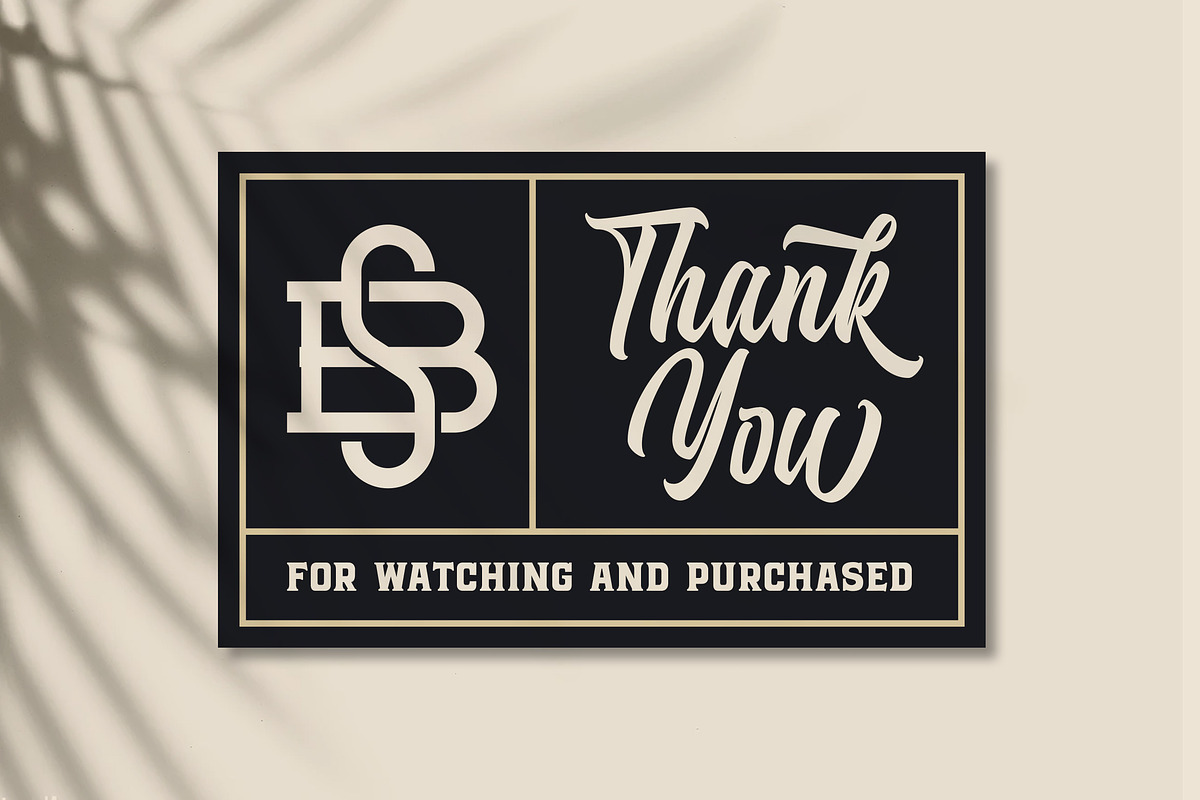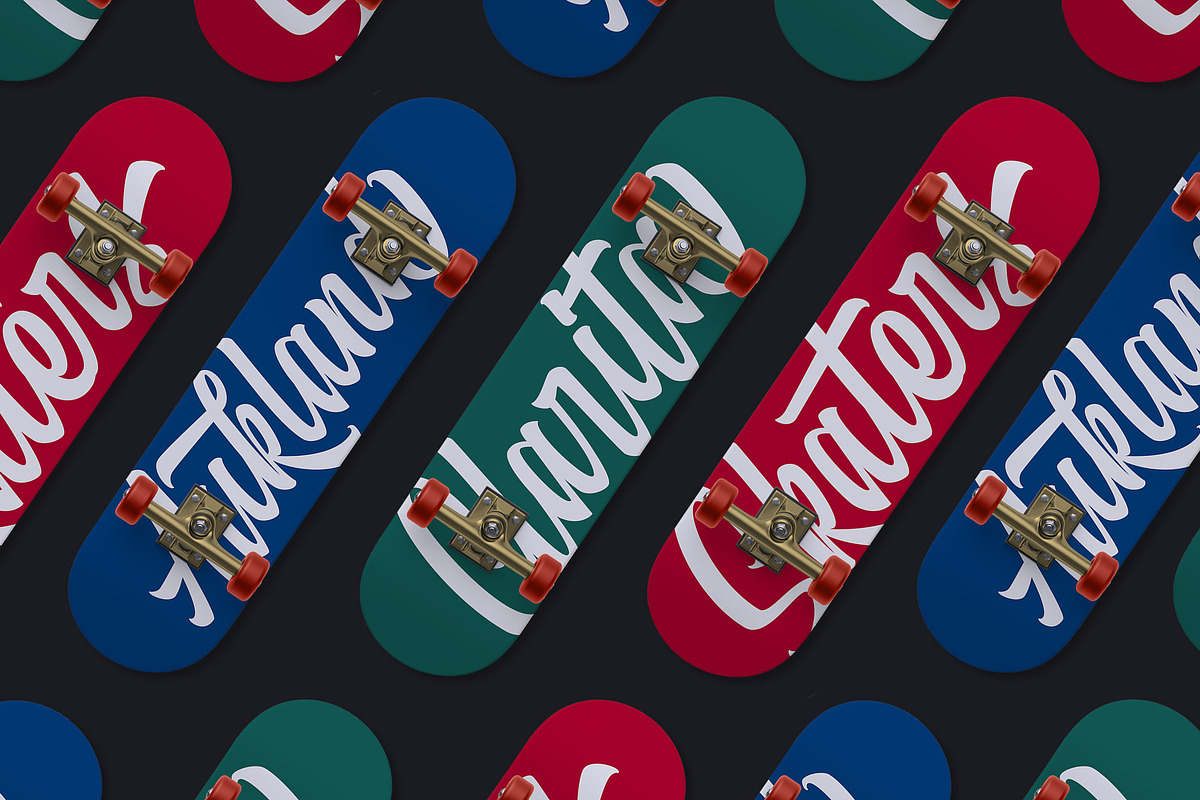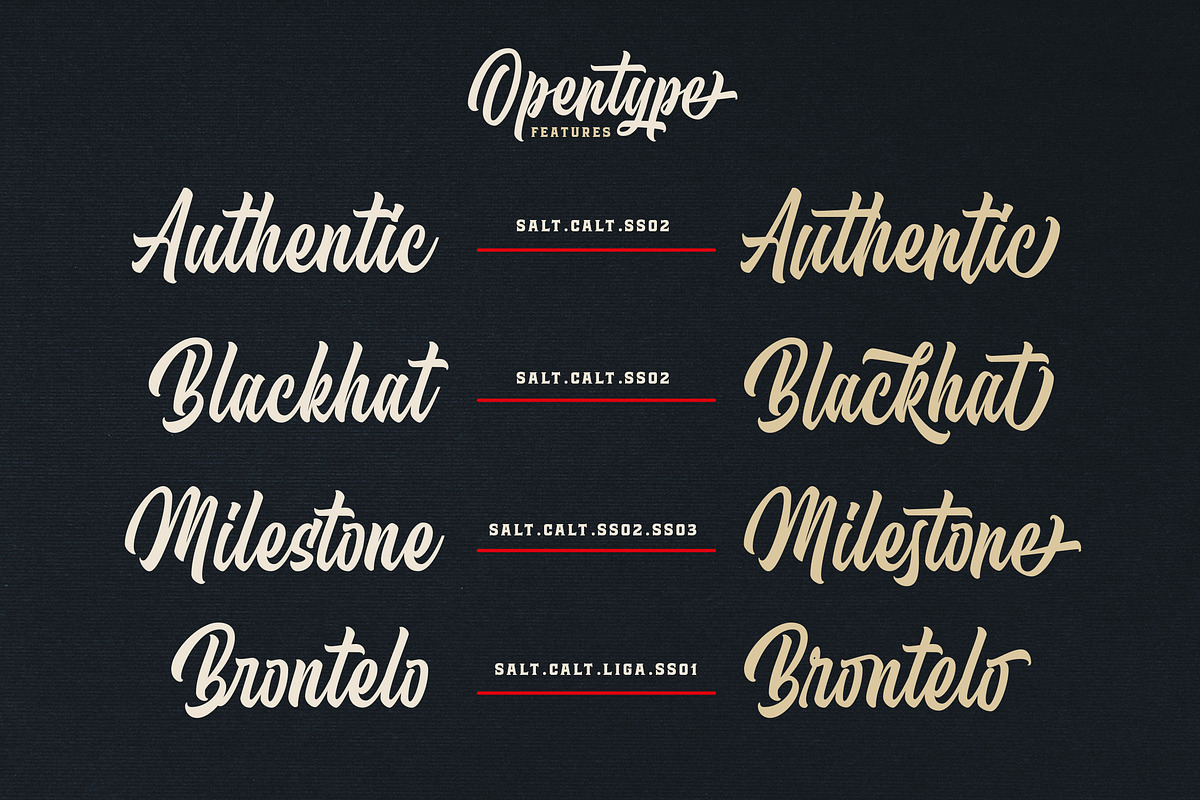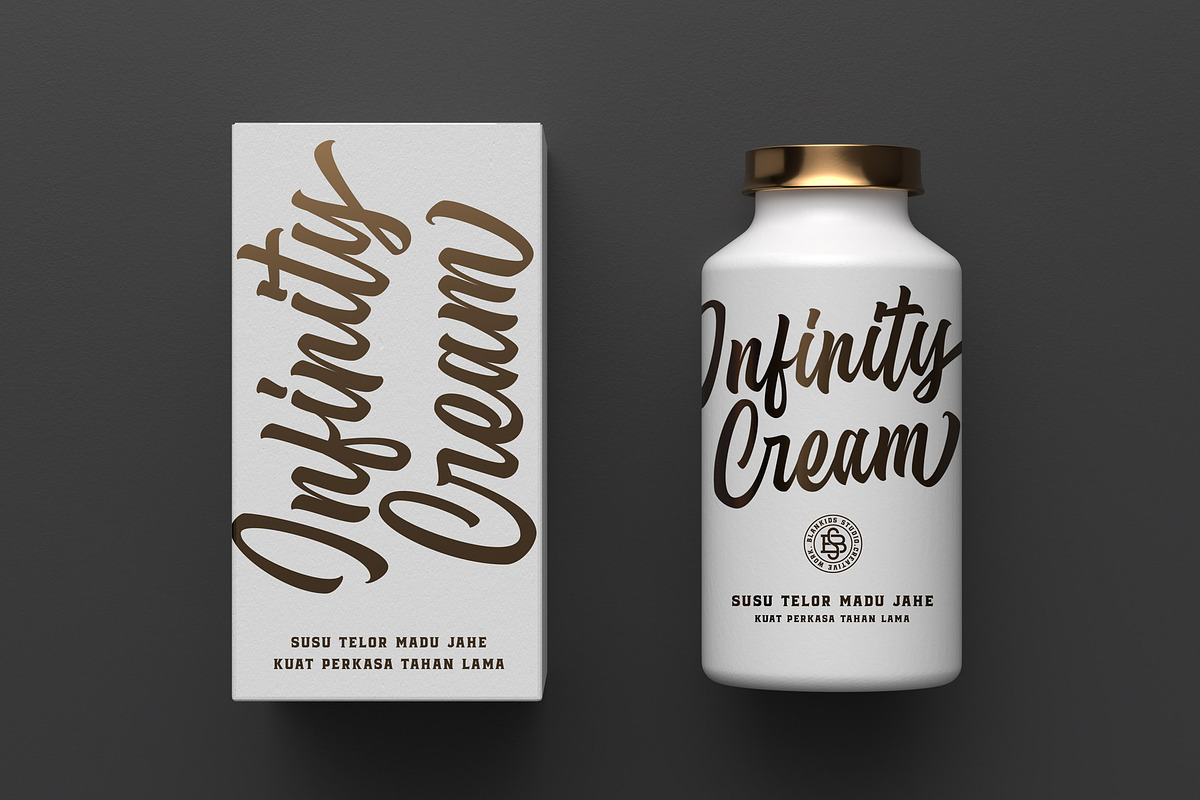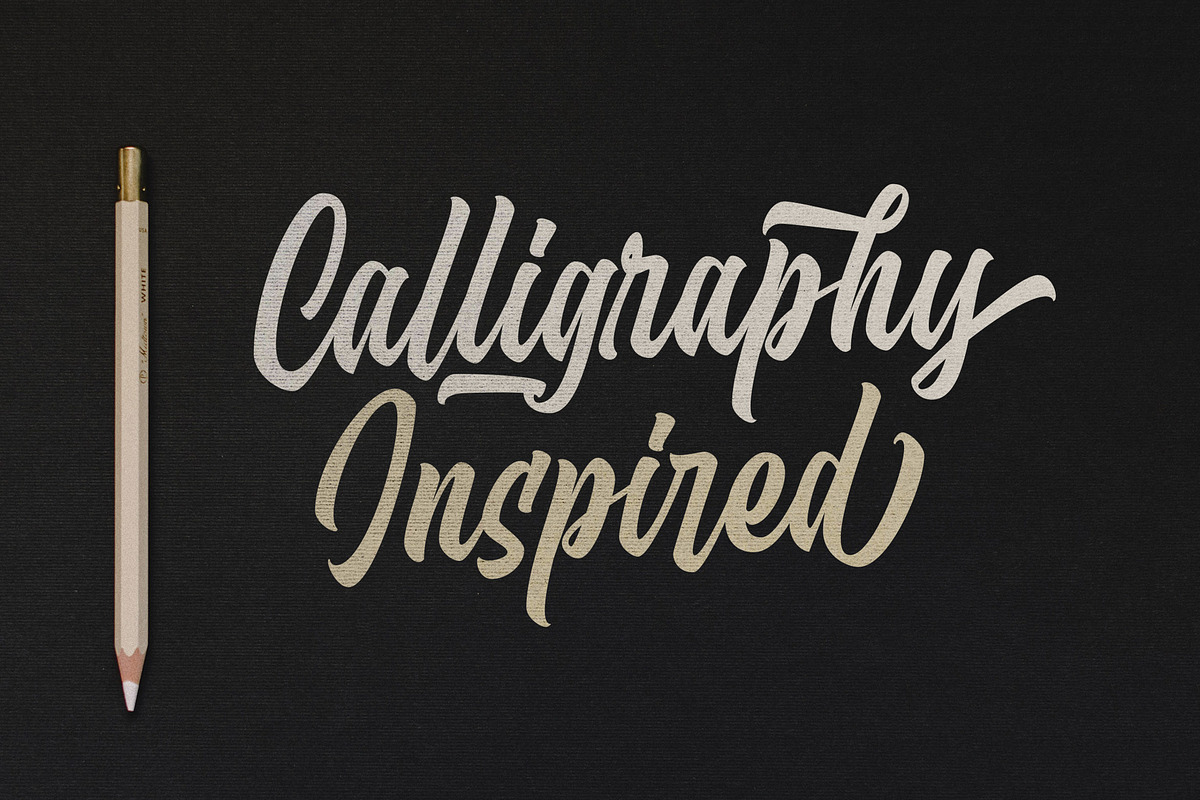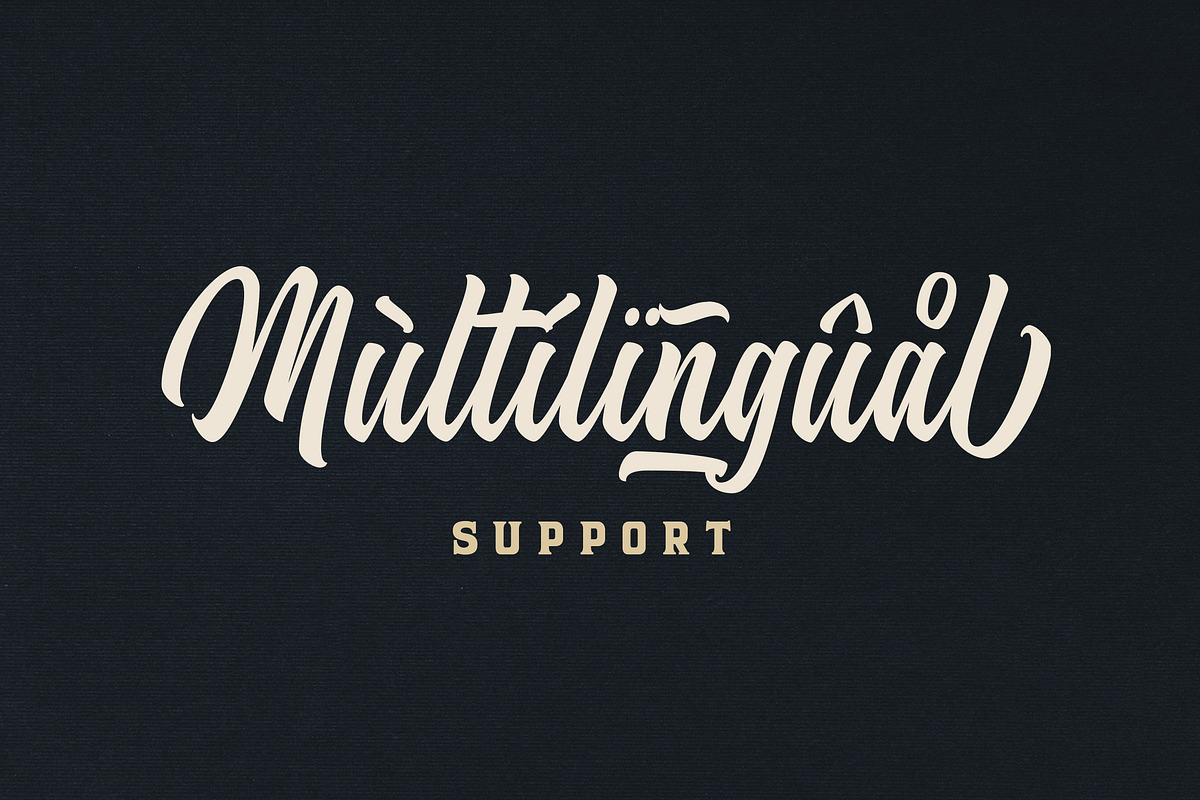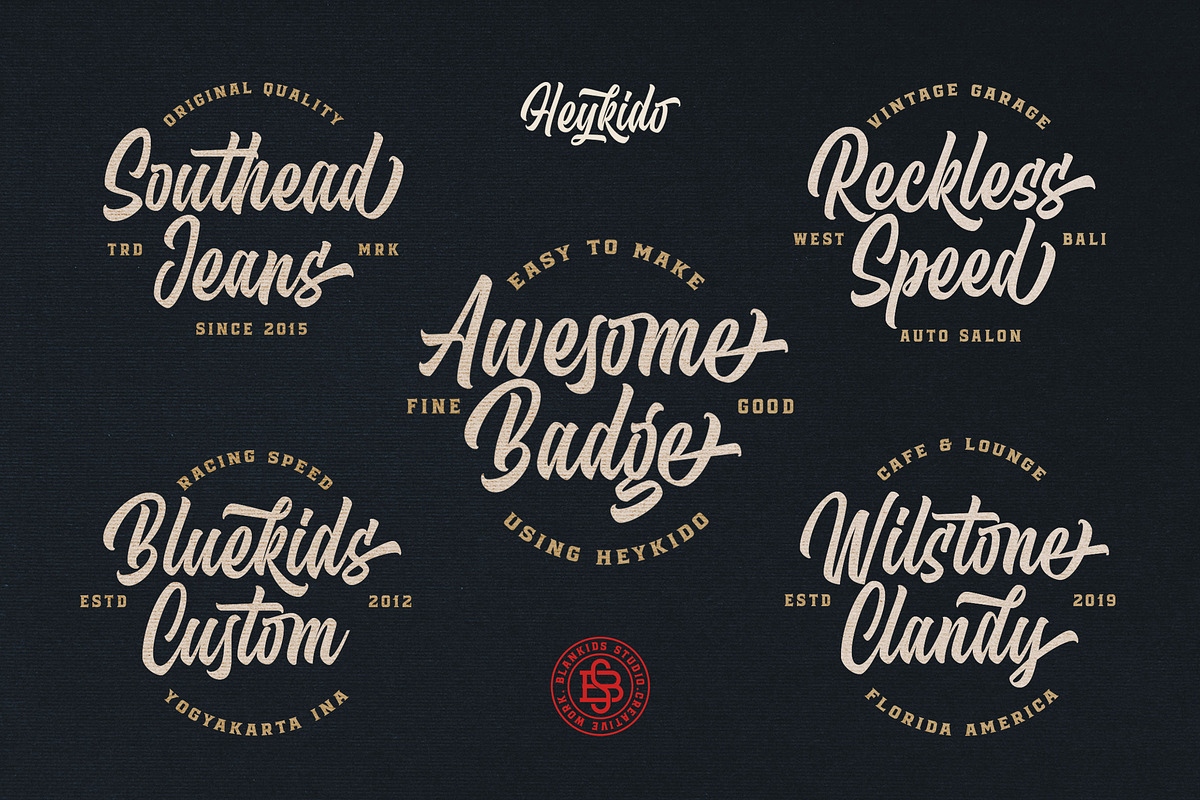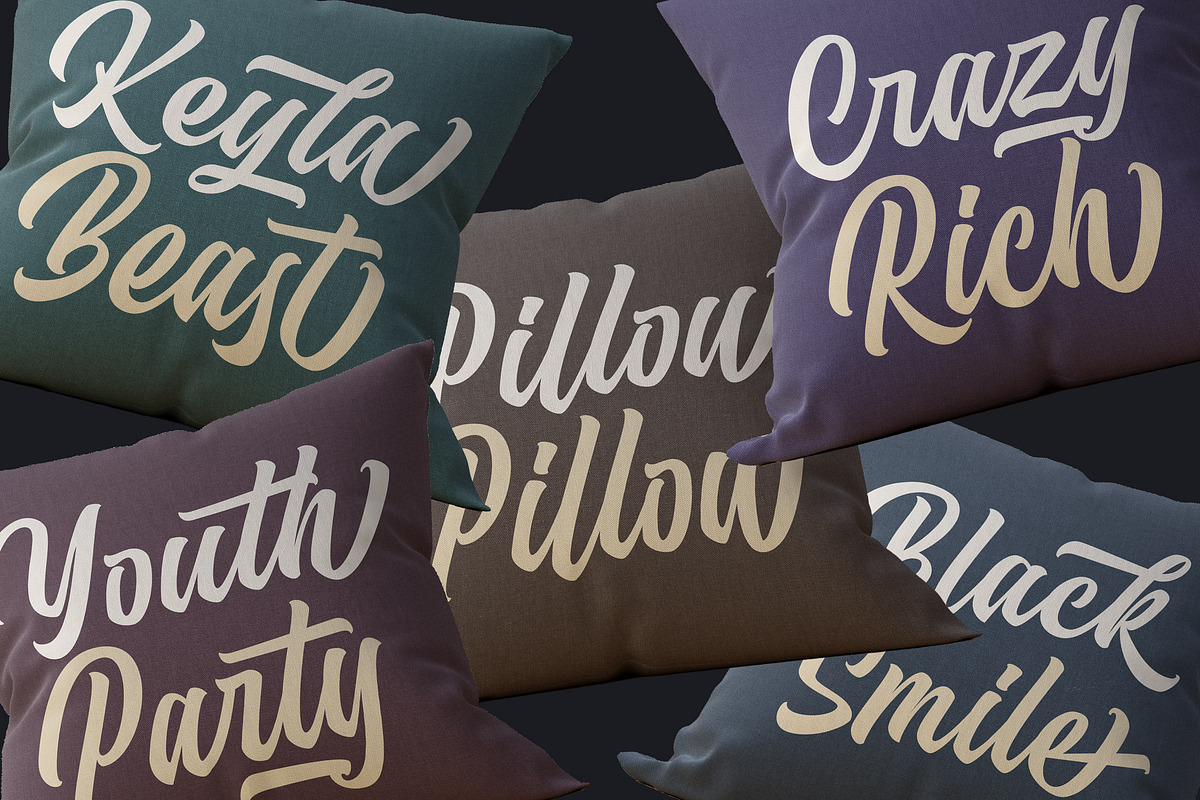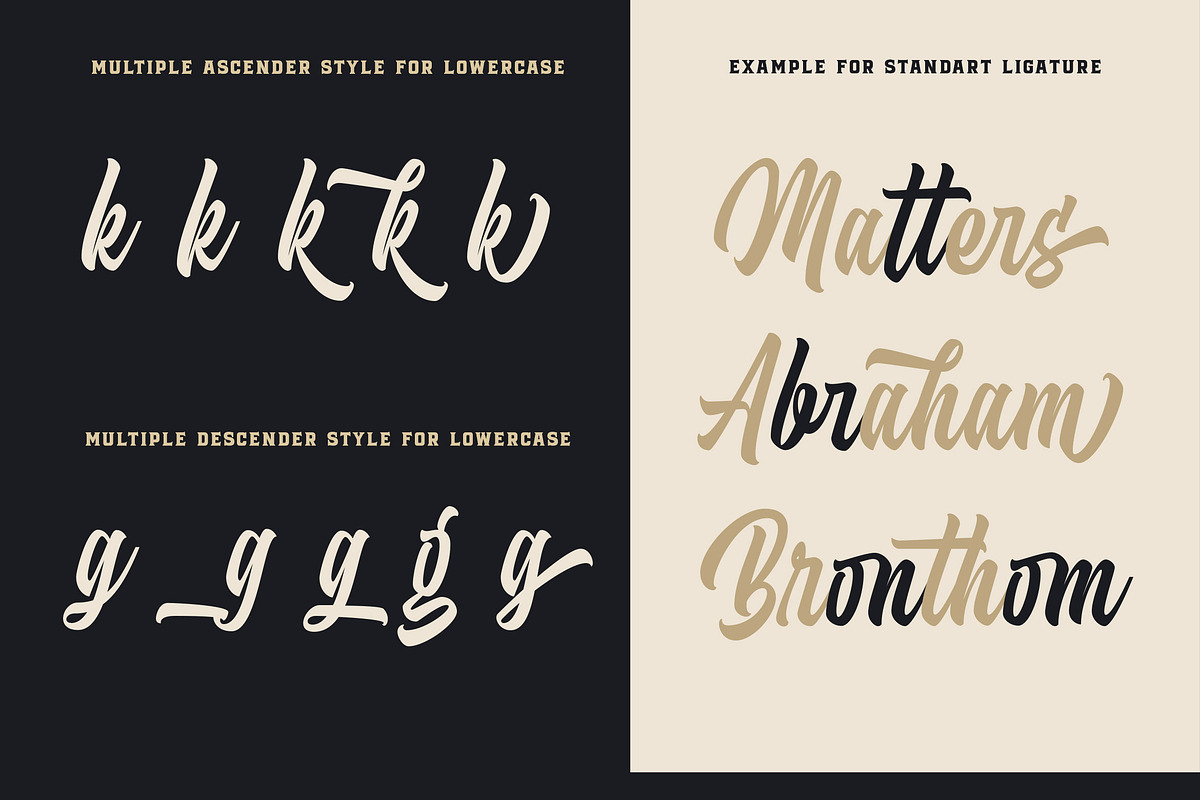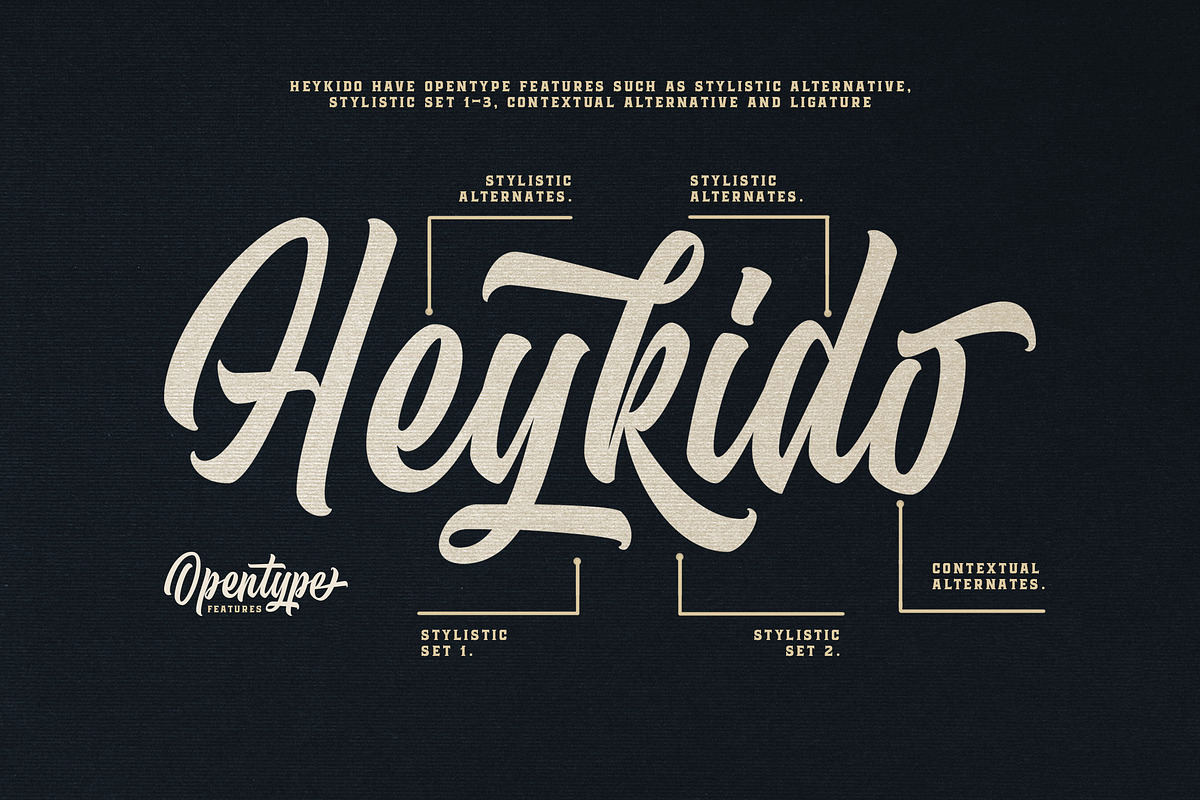
Heykido Script & Serif
Introducing a new font combination script and serif called Heykido inspired by urban script fonts with sharp and beautiful letters that create fonts that are modern, tendy and elegant. Heykido came with opentype features such stylistic alternates, stylistic sets & ligatures good for logotype, poster, badge, book cover, tshirt design, packaging and any more.
MULTiLINGUAL ACCENT
ŽžŠŒšŸÀÁÂÃÄÅÆÇÈÉÊËÌÍÎÏÐÑÒÓÔÕÖØÙÚÛÜÝßàáâãäåæçèéêëìíîïðñòóôõöøùúûüýÿ